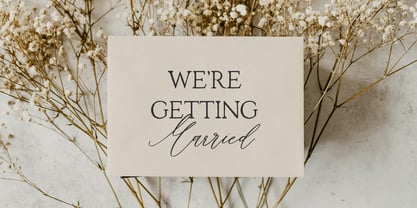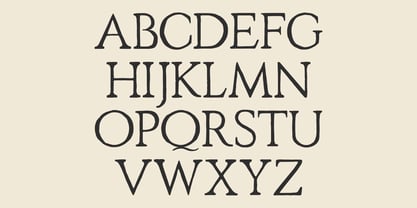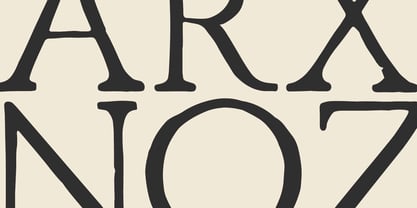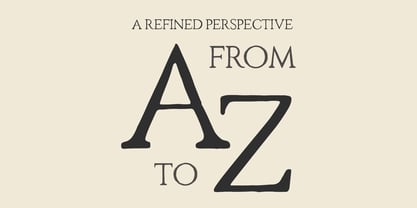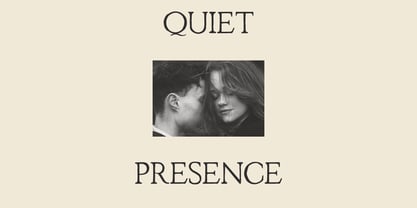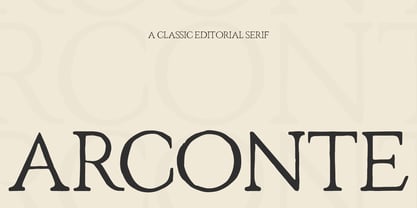
Arconte
by Bilberry Create
The Arconte Font Family was designed by Daria Cherniackova and published by Bilberry Create. Arconte contains 1 styles. More about this family
Arconte is a handwritten serif font with a natural, hand-drawn feel. The letters are intentionally imperfect, which gives the font a warm and organic look. Arconte includes uppercase letters only and is designed for clear, expressive typography. This font works well for titles, branding, invitations, editorial layouts, posters, packaging, and creative projects where character and simplicity are important. Arconte is easy to use and looks best at medium to large sizes. What’s included: Arconte Font Uppercase letters only Multilingual support (Latin-based languages) ✨ Perfect for branding, print design, invitations, posters, and creative layouts.
Designers: Daria Cherniackova
Foundry: Bilberry Create
Arconte